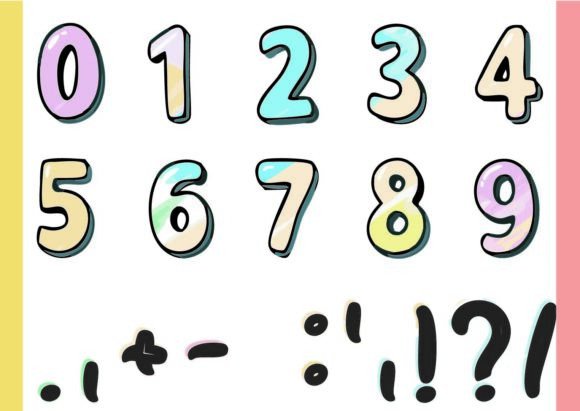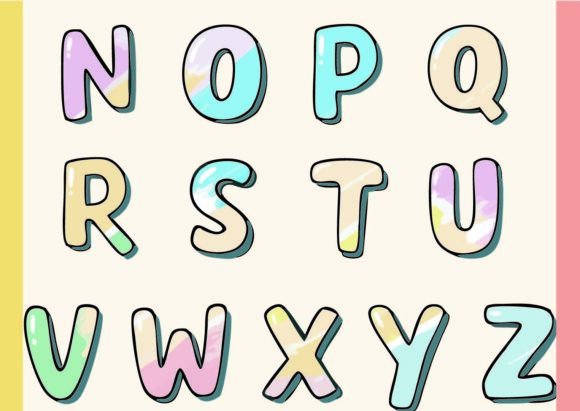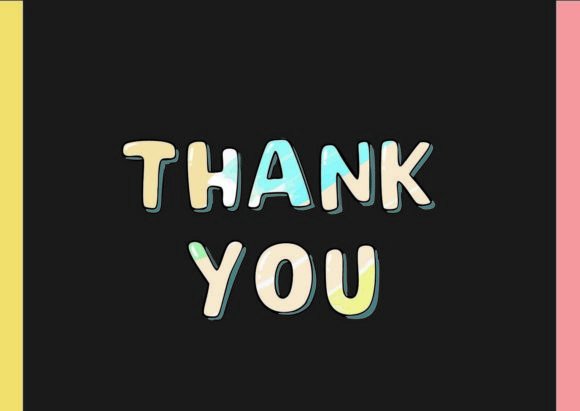
Introducing Amelia Font: A Colorful Heaven for Designers and Crafters
Are you tired of using the same old fonts in your designs? Do you want to add a pop of color and creativity to your projects? Look no further than Amelia Font, a stunning color font that is sure to take your designs to the next level. In this article, we’ll take a closer look at Amelia Font, its unique features, and how you can use it to enhance your designs.
A Colorful Heaven
Amelia Font is a one-of-a-kind color font that features a different set of colors for every single glyph. This means that each letter, number, and symbol in the font has its own unique color palette, creating a vibrant and eye-catching effect. Imagine a font that is not just a collection of letters and numbers, but a miniature painting in itself. That’s what Amelia Font offers.
Complex Sets of Paths and Connections
One of the most striking features of Amelia Font is the complex sets of paths and connections in every glyph. Each glyph is made up of intricate paths and connections that create a sense of depth and dimensionality. This level of detail is rare in fonts, and it’s a testament to the craftsmanship and attention to detail that has gone into creating Amelia Font.
A Typographic Painting
Each glyph in Amelia Font could be considered a typographic painting in its own right. The level of detail and color complexity is reminiscent of a miniature artwork, making Amelia Font perfect for designers and crafters who want to add a touch of elegance and sophistication to their projects.
Amelia Font is perfect for designers and crafters who want to add a touch of color and creativity to their projects. Whether you’re working on a graphic design project, creating digital art, or making crafts, Amelia Font is sure to inspire and enhance your work. Here are just a few ways you can use Amelia Font:
- Graphic design projects: Use Amelia Font to add a pop of color and creativity to your brochures, flyers, posters, and other graphic design projects.
- Digital art: Amelia Font is perfect for digital artists who want to add a touch of elegance and sophistication to their artwork.
- Crafting: Use Amelia Font to create beautiful and colorful crafts, such as handmade cards, gift tags, and other paper crafts.
Tips for Using Amelia Font
Here are a few tips for using Amelia Font in your designs:
- Experiment with different colors: Amelia Font is all about color, so don’t be afraid to experiment with different color combinations to find the one that works best for your project.
- Use it sparingly: While Amelia Font is beautiful, it can be overwhelming if used too much. Use it sparingly to add a touch of elegance and sophistication to your project.
- Pair it with other fonts: Amelia Font is a statement font, so it’s best paired with a simpler font to create contrast and visual interest.
Amelia Font is a stunning color font that is sure to take your designs to the next level. With its complex sets of paths and connections, intricate details, and vibrant color palette, Amelia Font is perfect for designers and crafters who want to add a touch of elegance and sophistication to their projects. Whether you’re working on a graphic design project, creating digital art, or making crafts, Amelia Font is sure to inspire and enhance your work.